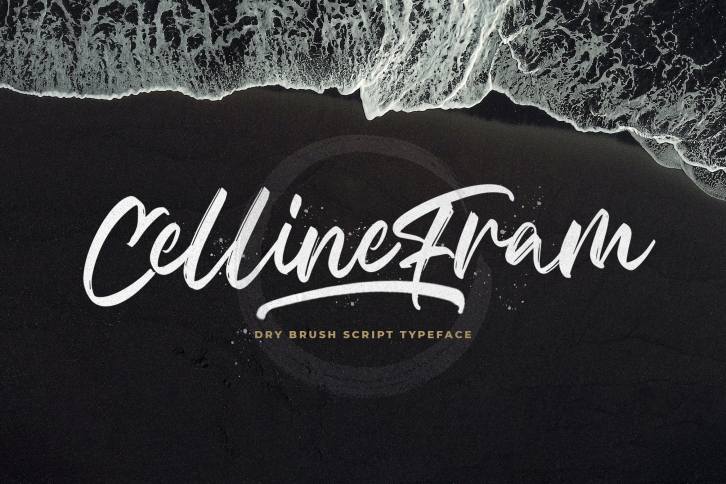
Celline Fram is a trendy and unique font with an authentic style. It was designed by Stringlabscreative and it's a great choice for creative people who need such a font. It was released on August 5, 2021 and the file size is 6.30 MB. Celline Fram will add an organic vibe to any design idea!